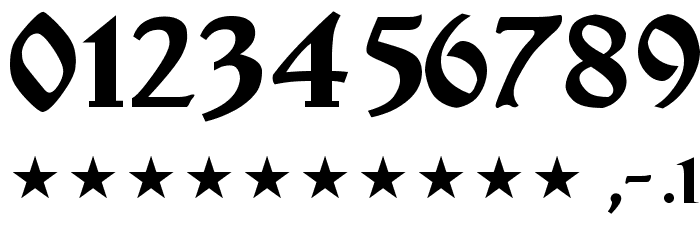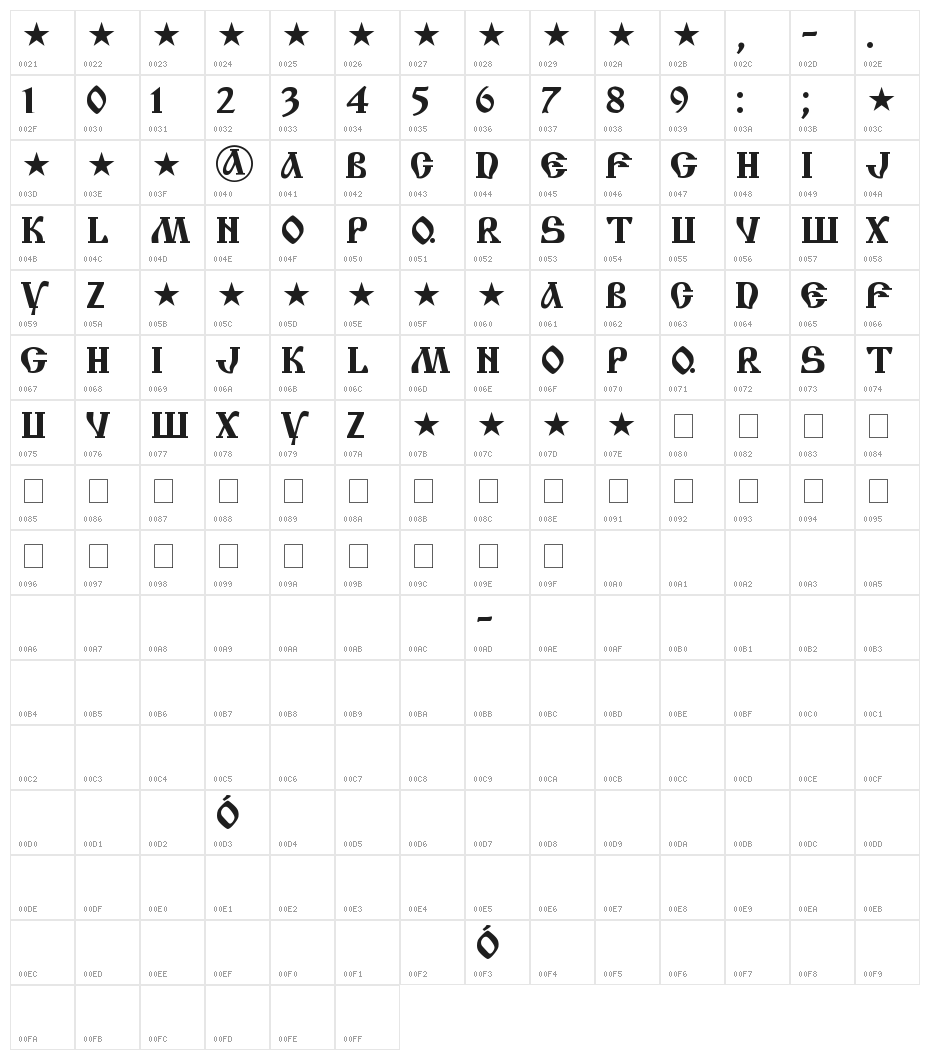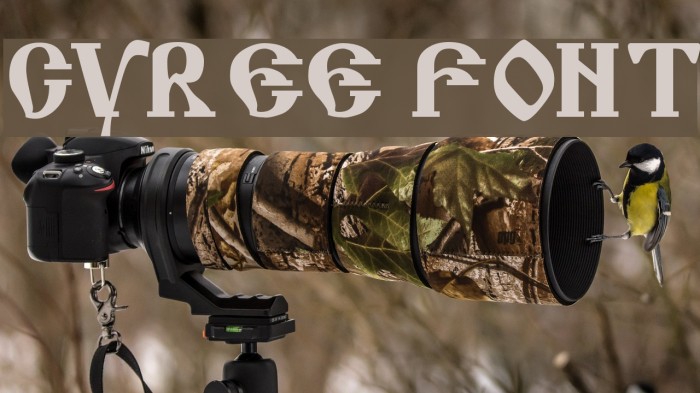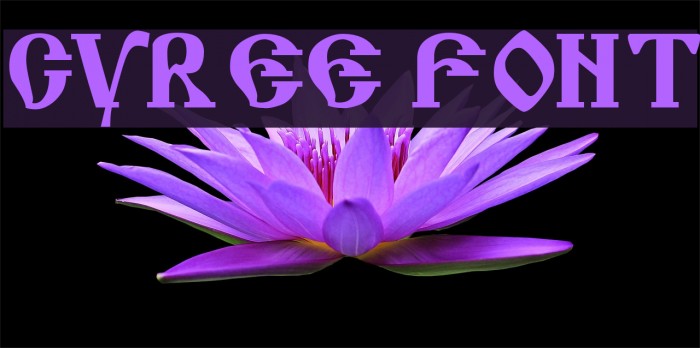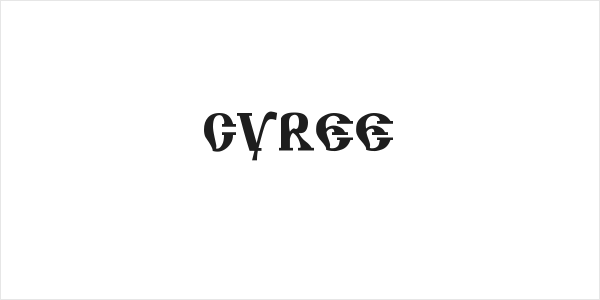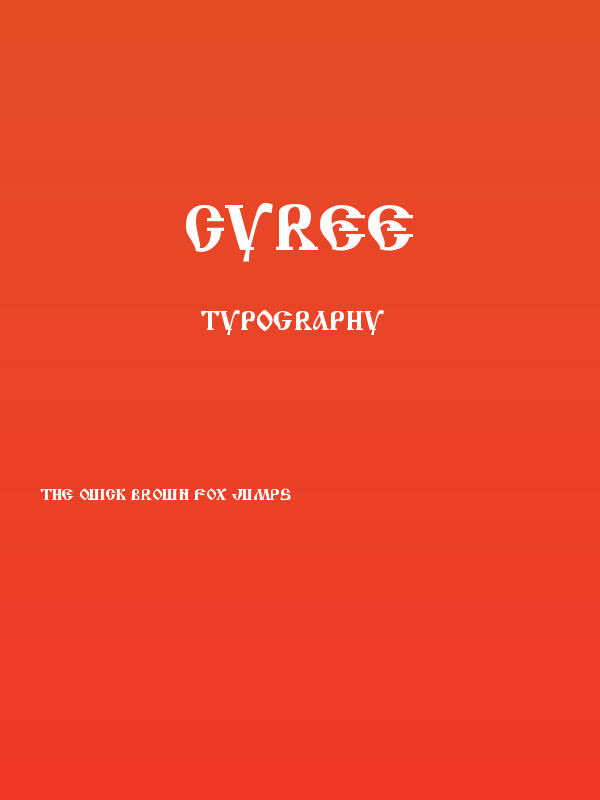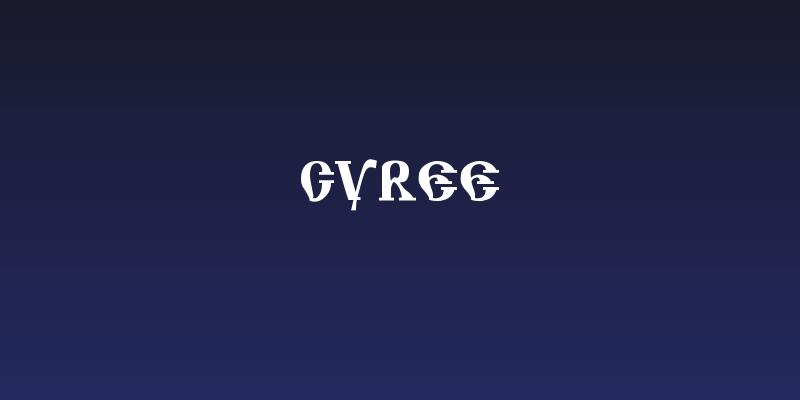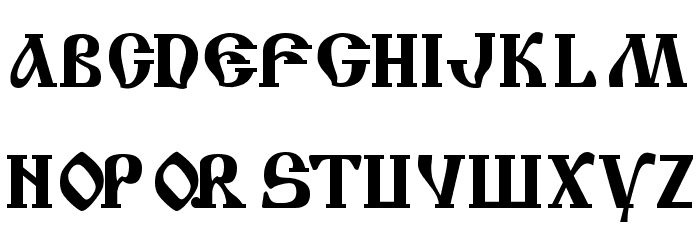
Cyree Font
Cyree Description
This font features a bold and striking design with a unique blend of sharp angles and curves, creating a dynamic and eye-catching appearance. The uppercase letters are particularly distinctive, with a mix of traditional serif elements and modern stylistic twists. The lowercase letters maintain a consistent style, complementing the uppercase with similar angular features. The numerals are bold and clear, ensuring readability while maintaining the overall aesthetic. Special characters are designed with the same attention to detail, making them stand out. This font is ideal for projects that require a strong visual impact.
| Proposed Projects | Ideal for branding, poster design, and any project needing a bold, modern serif font. |